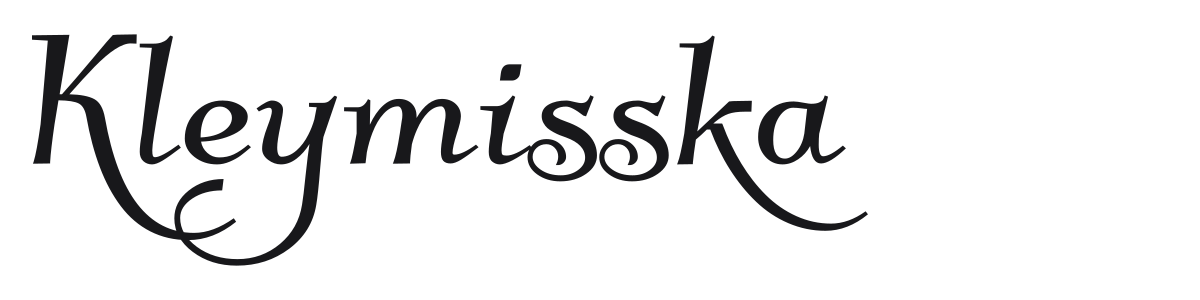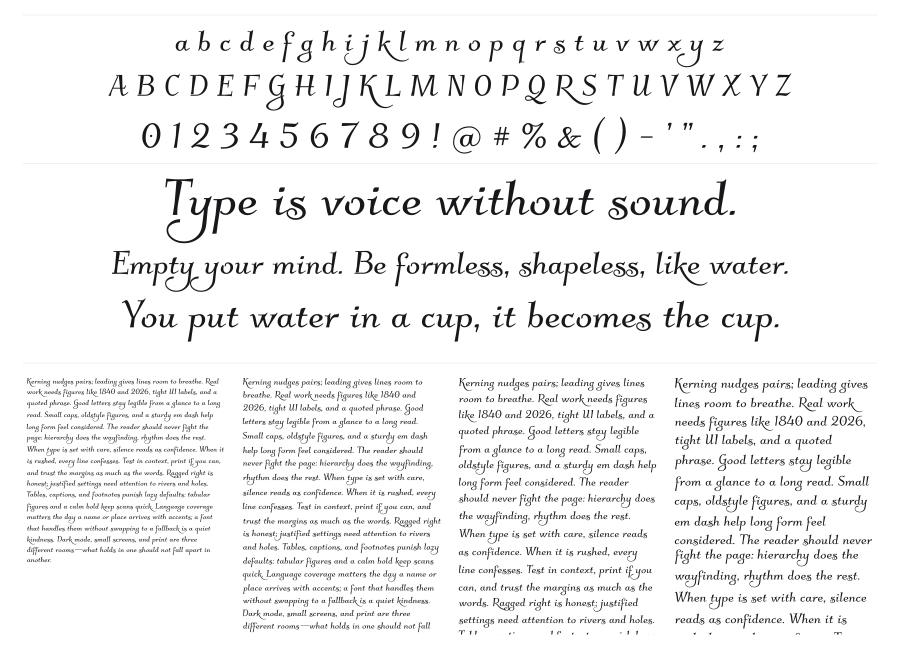
Kleymisska
Kleymisska is a bold cursive decorative font with deep calligraphic roots and high stroke contrast. It supports contextual alternates, ligatures, and initial and terminal forms that let text flow naturally with genuine calligraphic character. A heavier, more expressive evolution of the earlier Kleymissky, it carries real weight without losing its elegance.